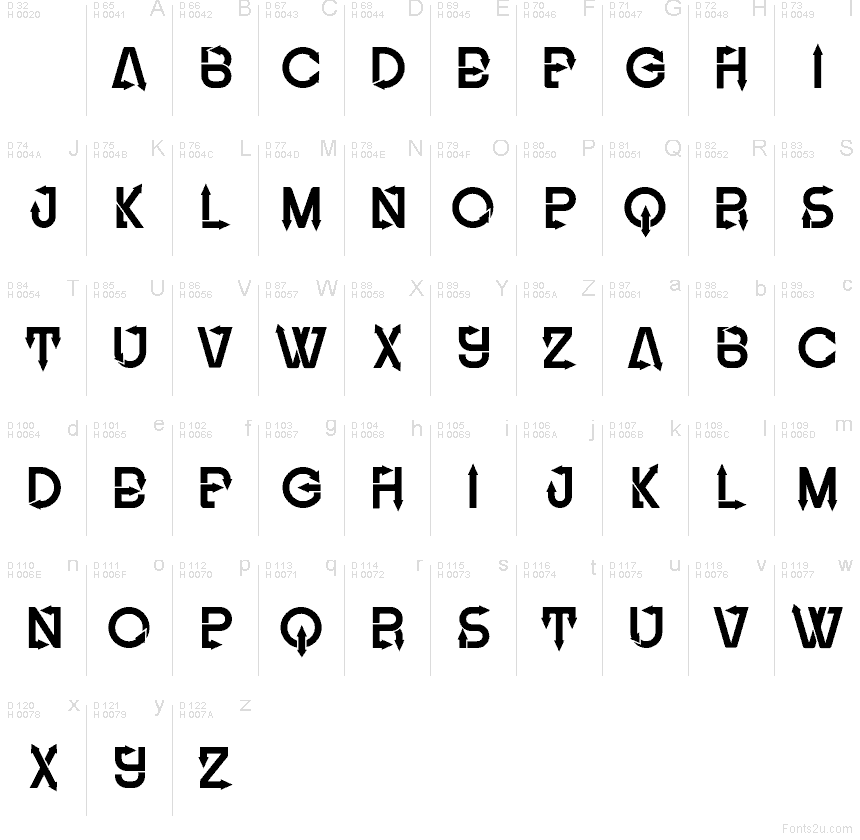
Right Paths Extravagant Regular
Right Paths Extravagant font by Vladimir Nikolic is a free decorative display typeface that literally points the way. Bold, blocky letters are sliced with sharp arrowheads and directional cuts, turning every word into a row of graphic symbols that feel kinetic and deliberate. The tight spacing and solid black forms give it a punchy, poster-like impact, as if each line were a signpost shouting for attention.
Using Right Paths Extravagant, your text instantly suggests movement, progress, or choice, making this free font a natural fit for event titles, gaming or esports graphics, sci‑fi posters, tech branding, album art, and bold social media banners. Its built‑in arrows guide the eye along the line of text, so it works best large, in short phrases. Pair it with a clean, neutral sans serif for body copy to let the arrows do the talking.